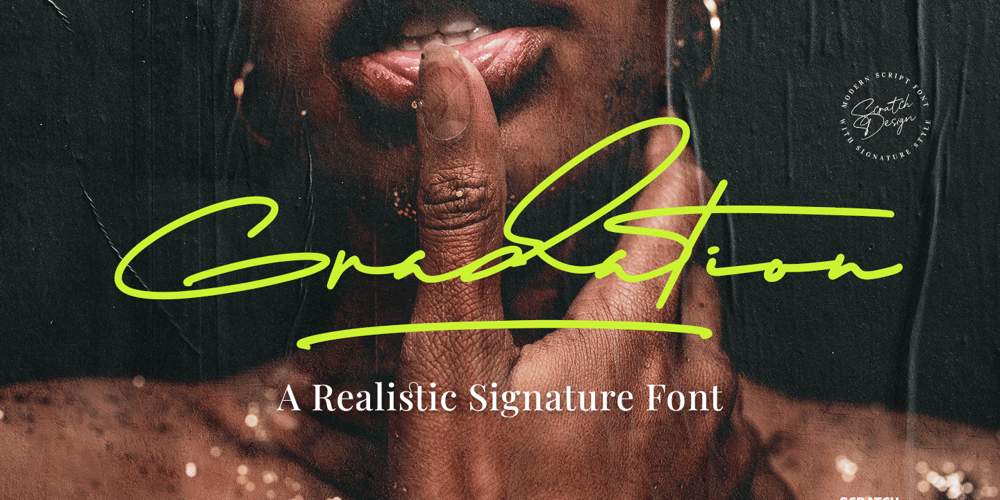
Gradation Font Family was designed by Gitayogi Irhandi and published by Scratch Design. Gradation contains 1 styles and family package options. Introducing ‘Gradation” is a realistic signature font style. Gradation font is perfect for you to make a realistic signature, it’s so easy to use and you can combine it with the swashes to make your signature more real & natural. Gradation will be perfect for different projects such as logos & branding, wedding invitation designs, social media posts, advertisements, website & landing page, product packaging, product designs, label, photography, and watermark. Gradation has a modern shape and comes with a monoline stroke that will make your signature look clean and luxurious.How to use this font: Just open your Opentype features ( Minimum Compatible with Adobe Photoshop CS 6 and Adobe Illustrator CS 6 ) in Adobe photoshop go to Window – Glyphs and all the alternates will appear while using the script font to use the ligatures and swashes. As you type, your text will look like a natural signature or handwriting.What are you waiting for? Download now Gradation font and make your own Signature logo!